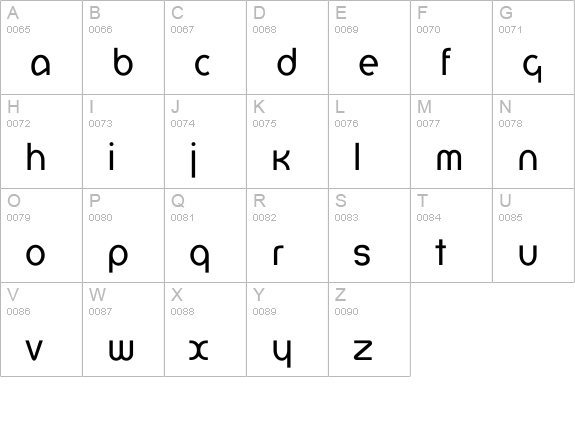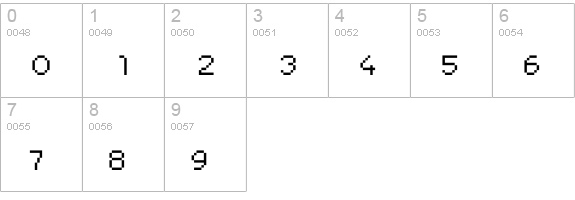
Lower Demo font is a unique and stylish typeface that perfectly blends modern aesthetics with a touch of vintage charm. This font features clean lines and subtle curves, making it ideal for a wide range of design projects. Its lowercase letters are particularly eye-catching, adding a playful and dynamic element to any text. The best part? Lower Demo font is completely free to download at FontsMarket.com, making it accessible to all designers and creatives looking to add a fresh and distinctive look to their work. Whether you're designing a logo, poster, website, or any other creative project, Lower Demo font is sure to make a statement and elevate your design to the next level. Don't miss out on this fantastic font - download it today and let your creativity shine!